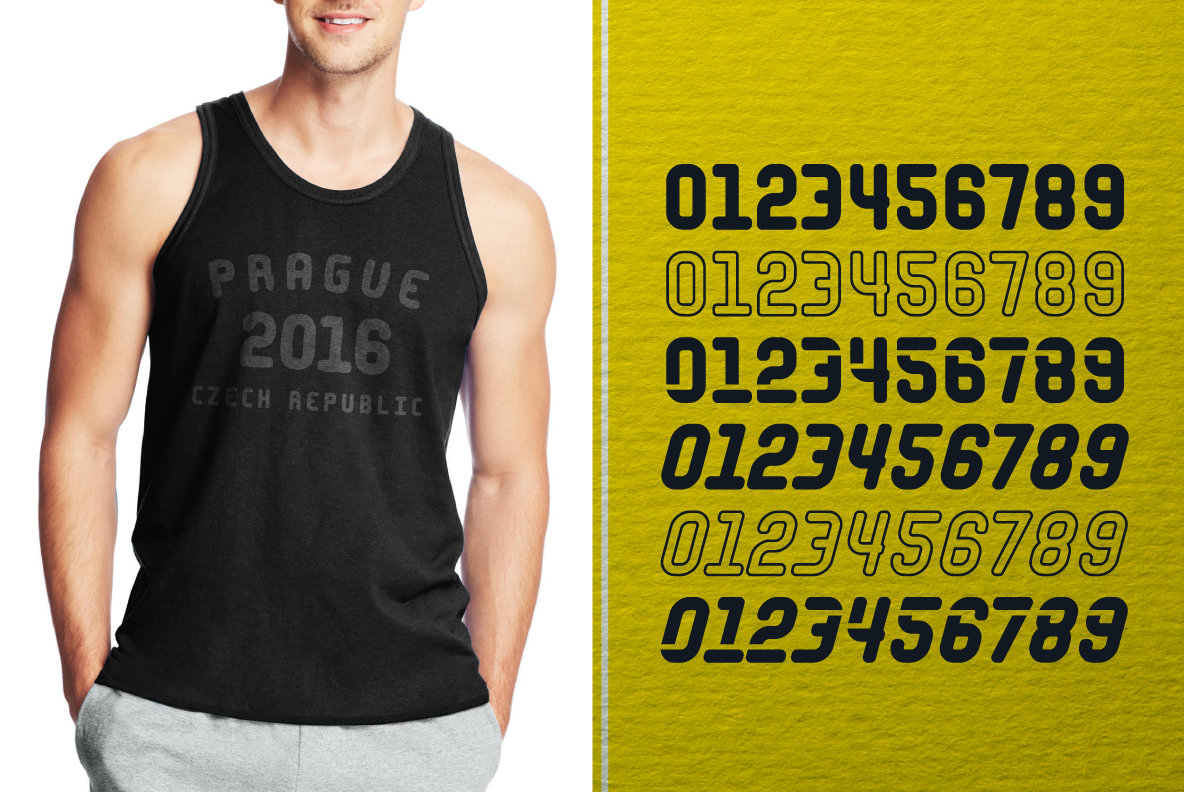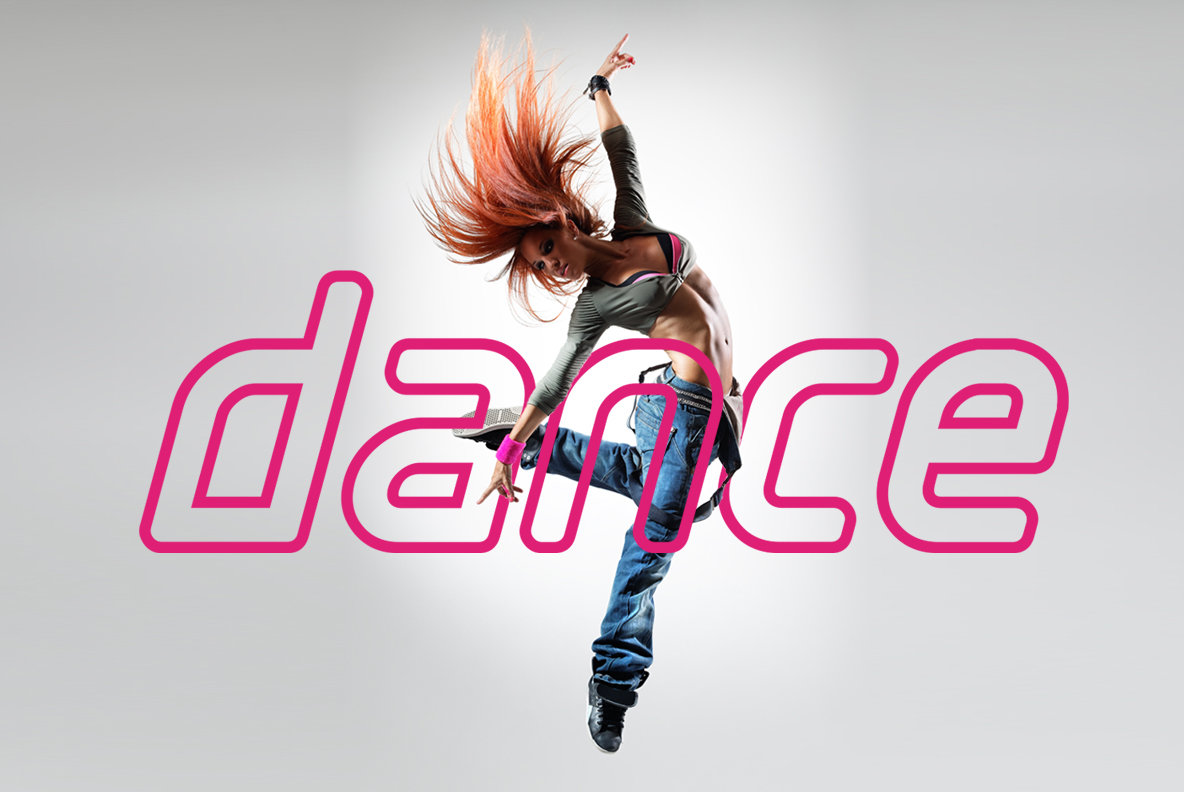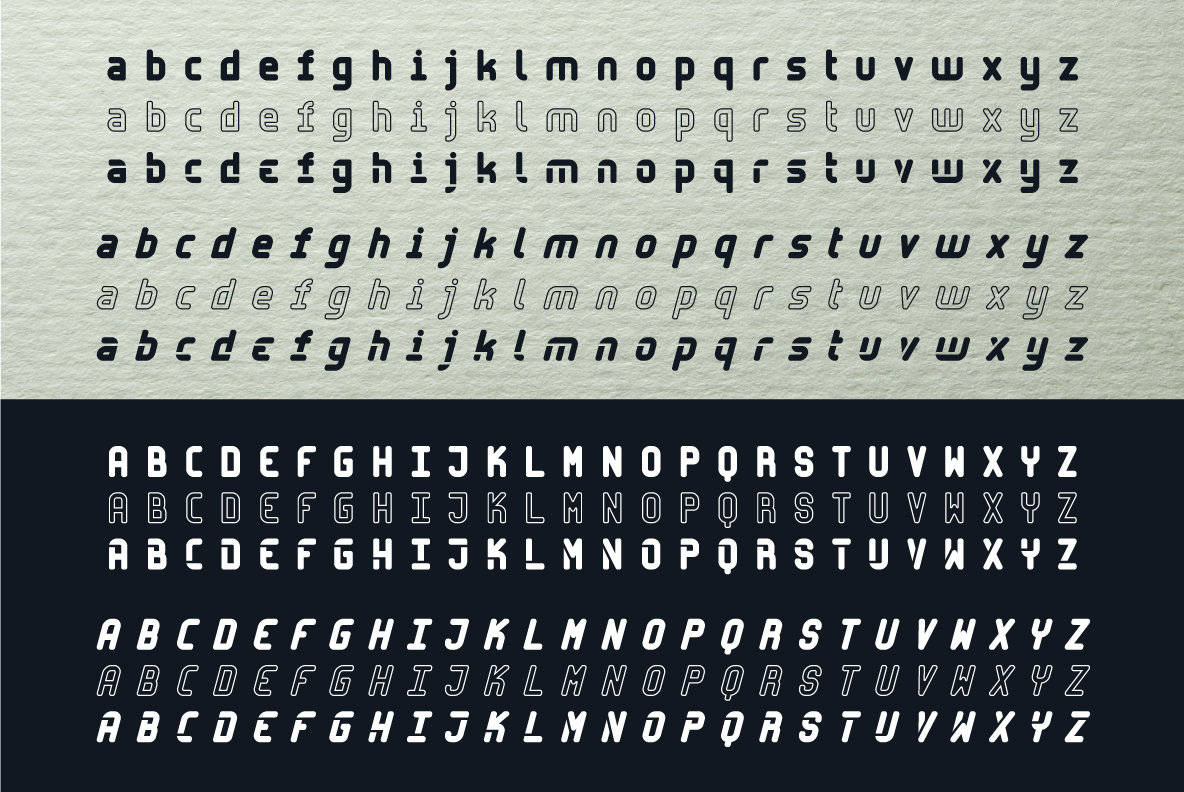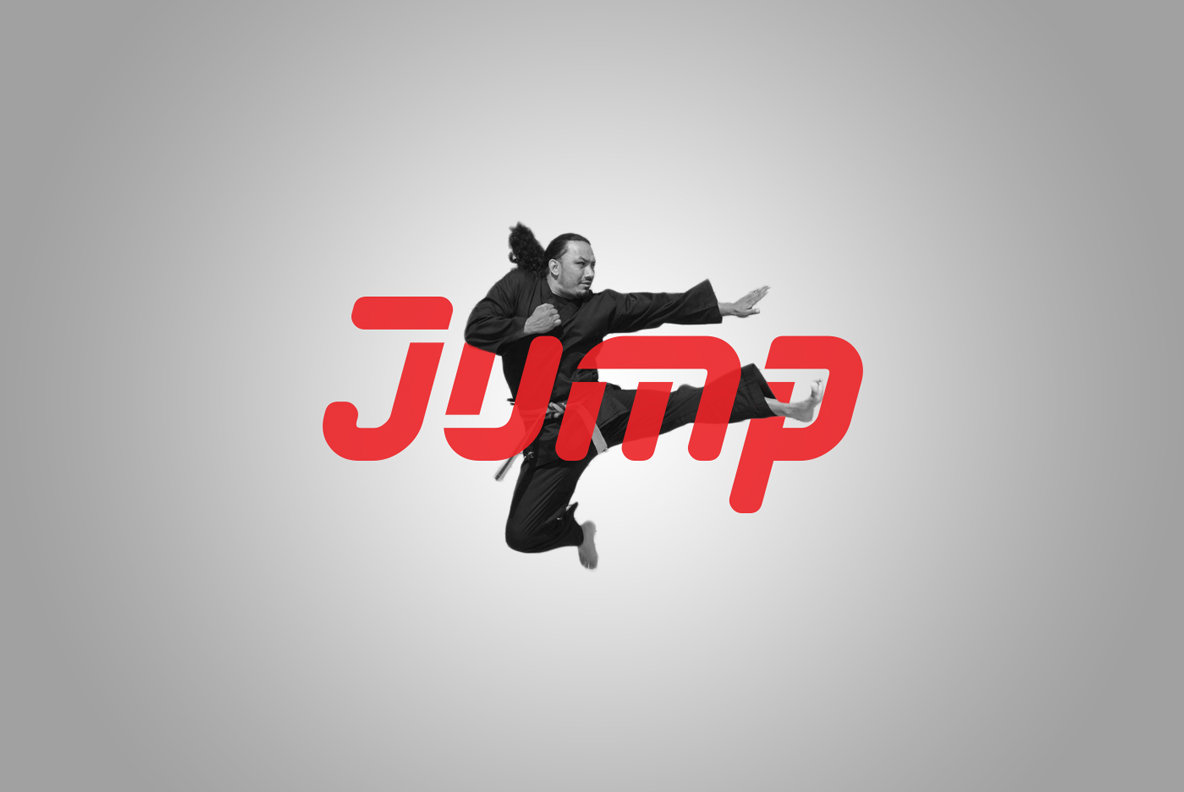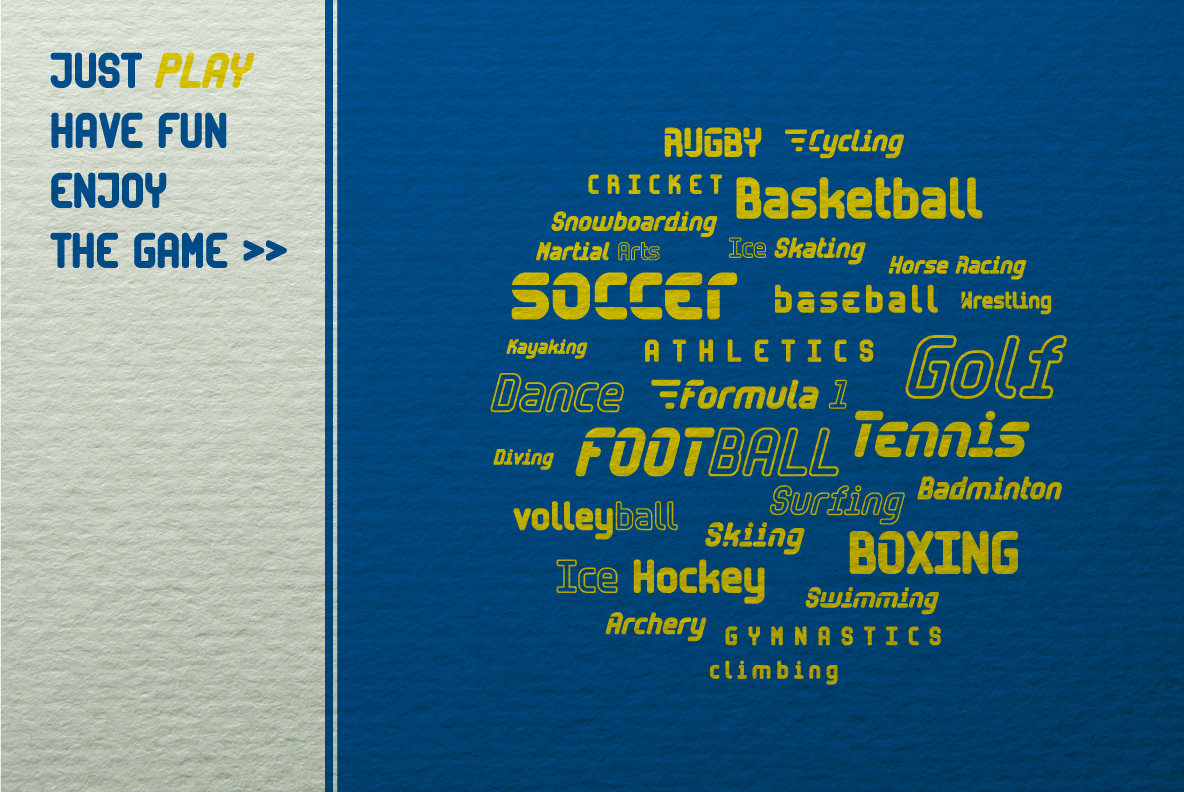
Sporta Font Family
Sporta is contemporary bold modern geometric rounded sans-serif display typeface, intended for big, funky headings and titles.
Sporta is a family of 6 fonts. It has 350 glyphs and comes in 3 different styles: regular,outline and stencil – bold & bold italic.